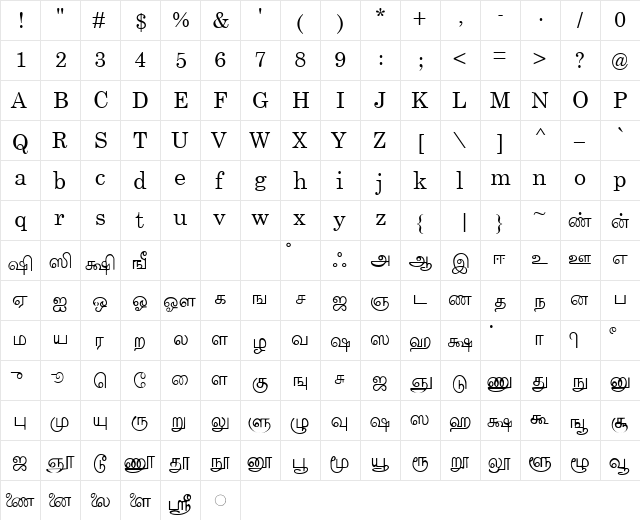
Tamil INetFont Normal
Design Context for Tamil INetFont Typeface
Tamil INetFont offers clean, dependable letterforms without strong stylistic allegiance, making it a practical choice for designers who need flexibility.